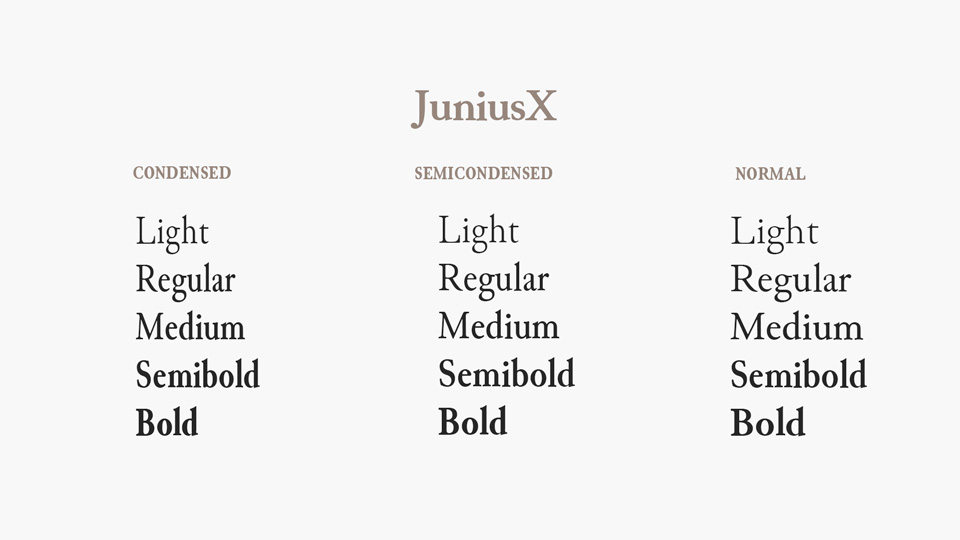
JuniusX is a serif font family, a completely rebuilt version of Junicode, the font for medievalists. When complete, it will offer the full MUFI (Medieval Unicode Font Initiative, version 4.0) character set in all faces, which will include Light, Regular, Medium, Semibold and Bold weights, Condensed, Semicondensed and Regular widths, and (of course) roman and italic styles. All fonts will include an expanded set of OpenType features—for example, automated transliteration of Latin text to runic or Gothic, mirrored runes, historical ligatures (easing access to MUFI’s specialized ligatures), old-style figures, and many variant letter-shapes.